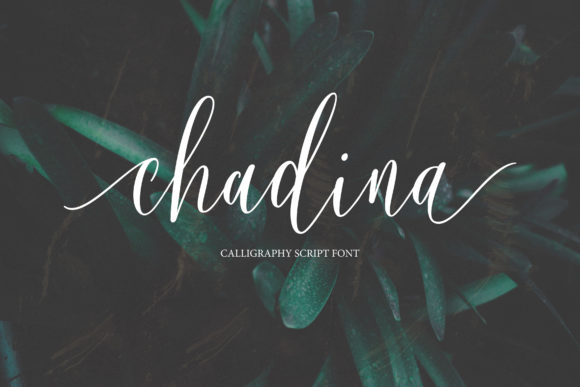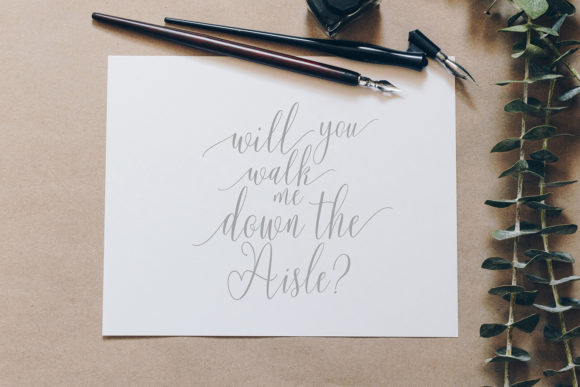
About Chadina Script Font
Chadina is a beautiful and romantic script font that perfectly combines classic style with modern calligraphy. With its smooth and stylish characters, this font will look natural and authentic on every product!
This beautiful script is perfect for projects such as titles, signatures, logos, wedding invitations, t-shirt, letterheads, nameplates, labels, bulletins, posters, badges, etc.